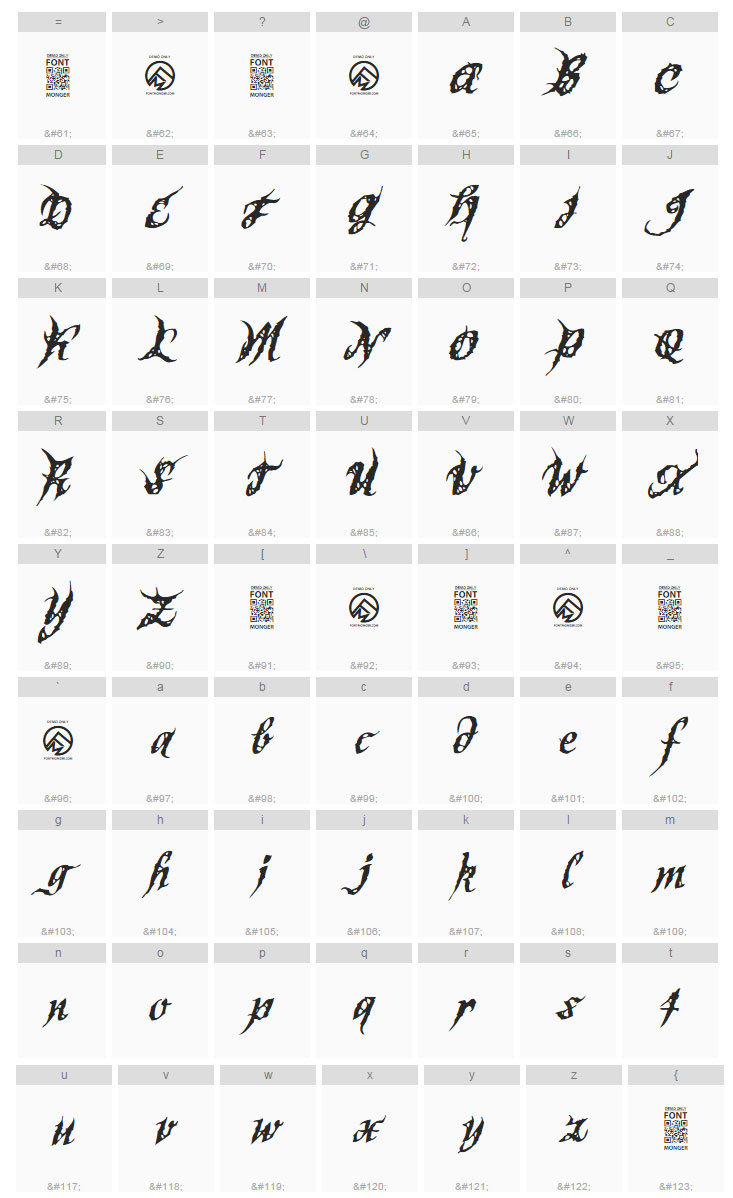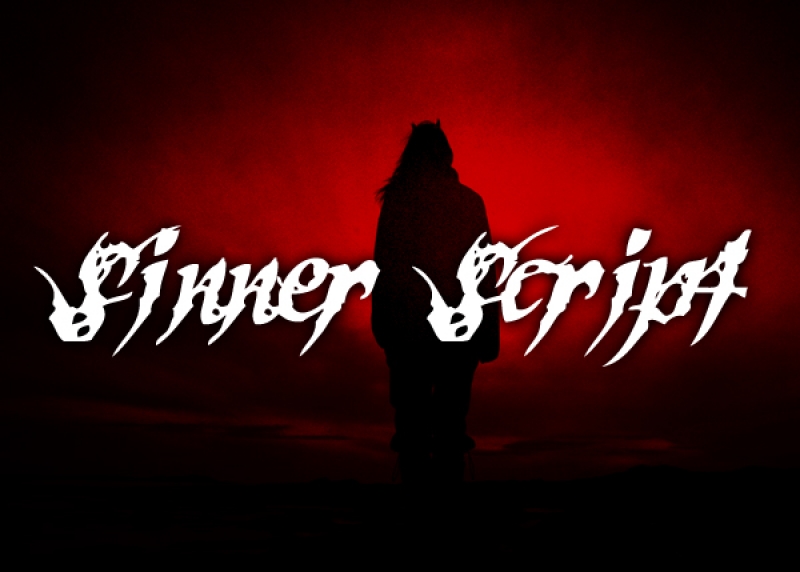
This font took me weeks to make! Hopefully everyone enjoys this font as much as I did making it. This font went from pen and paper to an awesome font. This font is for demo use only, any usage of this font requires a font usage license.